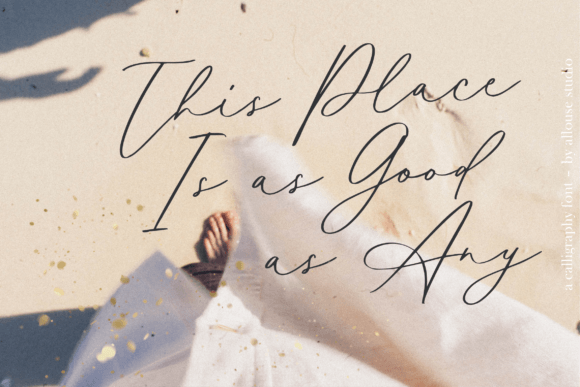
Introduction to Mathilda Calligraphy Font
Have you ever been working on a creative project and stumbled upon the perfect font to elevate your design? For designers, finding the right font can be a game-changer. It’s the difference between a good design and a great one. For those who have been searching for the perfect calligraphy font, we’re excited to introduce you to Mathilda Calligraphy Font.
This beautiful font is perfect for adding a touch of elegance to your designs. Whether you’re working on product packaging, branding projects, magazines, or social media, Mathilda Calligraphy Font is sure to impress. With its high-quality design and versatility, it’s no wonder this font is a valuable resource for designers. And the best part? It’s available for free download, making it accessible to designers of all levels.
Key Features of Mathilda Calligraphy Font
- High-quality, elegant script font designed for creative projects and professional use, ideal for wedding invitations, greeting cards, and more.
- Unique characteristics include swash connections, flourishes, and subtle variations in letterforms, adding a touch of elegance and sophistication to any design project.
Honest Review: Mathilda Calligraphy Font
As a designer, I’m always on the lookout for high-quality design resources to elevate my creative projects. The Mathilda Calligraphy Font has been a game-changer for me, offering a beautiful and elegant touch to my designs.
- Stunning calligraphy style that’s perfect for wedding invitations, quotes, and other creative projects
- Great for designers who need a elegant and sophisticated font for their designs
- No extensive character set, which may limit its use for longer texts
- Not suitable for small font sizes due to its delicate nature
Overall, I’m really impressed with the Mathilda Calligraphy Font. It’s a fantastic design resource that adds a touch of elegance to any creative project. While it may have some limitations, its beauty and quality make it well worth the investment.
Mathilda Calligraphy Font is ideal for wedding invitations, birthday cards, and other creative projects that require a touch of elegance and sophistication. The font is also suitable for use in logos, branding materials, and other design resources.